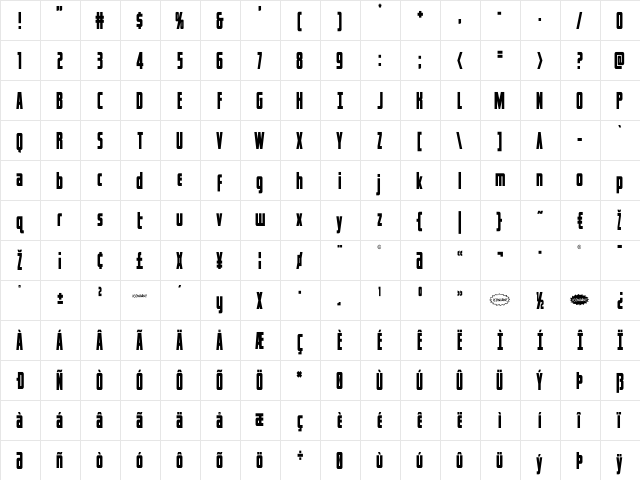
Captain Canaveral Condensed Condensed
Design Context for Captain Canaveral Condensed Typeface
Captain Canaveral Condensed takes a measured approach to typography — its balanced proportions and neutral character make it a reliable workhorse for both digital and print work. The condensed width makes it efficient for tight spaces without sacrificing legibility.